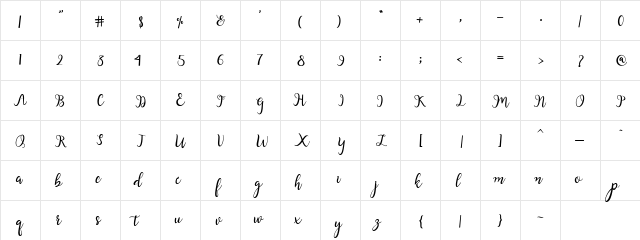
Loving Regular
Design Context for Loving Typeface
Loving is a composed and adaptable typeface that performs quietly and consistently across a wide range of design contexts.